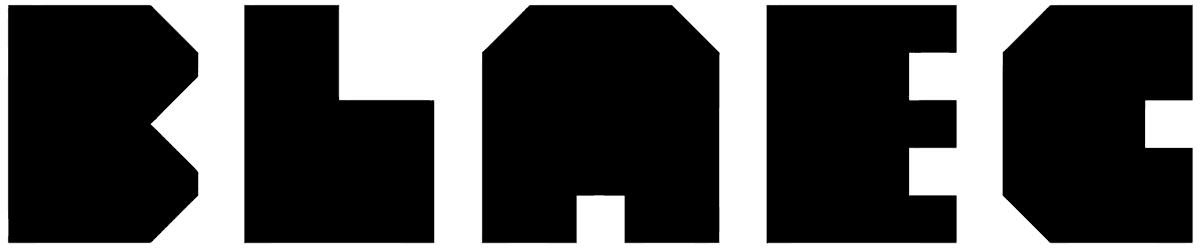
Blaec Font
Blaec is a techno square font providing 2 styles, bold and italic, which you can benefit from for a futuristic advance designed typography that also has a retro feel. The block characters have a powerful structure; they…
Blaec is a techno square font providing 2 styles, bold and italic, which you can benefit from for a futuristic advance designed typography that also has a retro feel. The block characters have a powerful structure; they are inspired by robotics and remind you of technology.
The letterforms are well organized, and the fact that it doesn’t contain lower case alphabets is not something you need to worry about as they are not necessary. Try Blaec in gaming, flyers, logos, movies, and more.